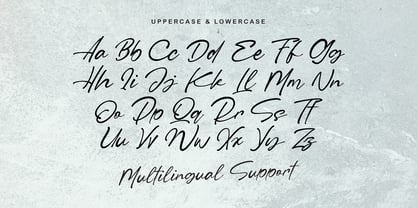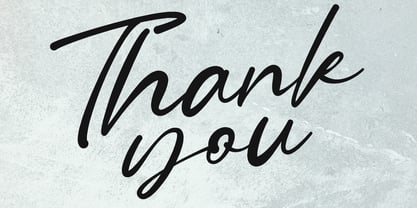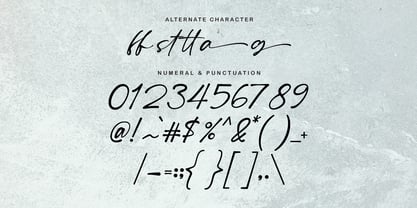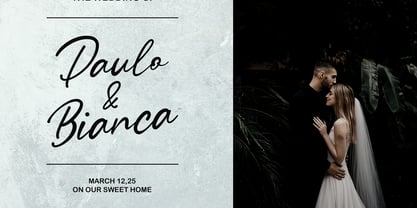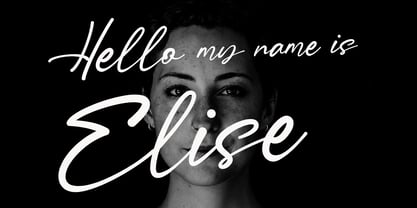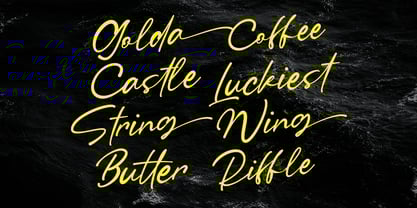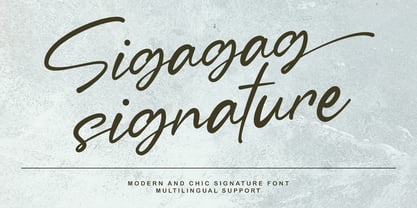
MC Sigagag
by Maulana Creative
The MC Sigagag Font Family was designed by Gilang Maulana and published by Maulana Creative. MC Sigagag contains 1 styles. More about this family
Give your designs an authentic brush handcrafted feel. “Sigagag Signature Display Font” is perfectly suited to signature, stationery, logo, typography quotes, website header, branding and more.
Designers: Gilang Maulana
Foundry: Maulana Creative